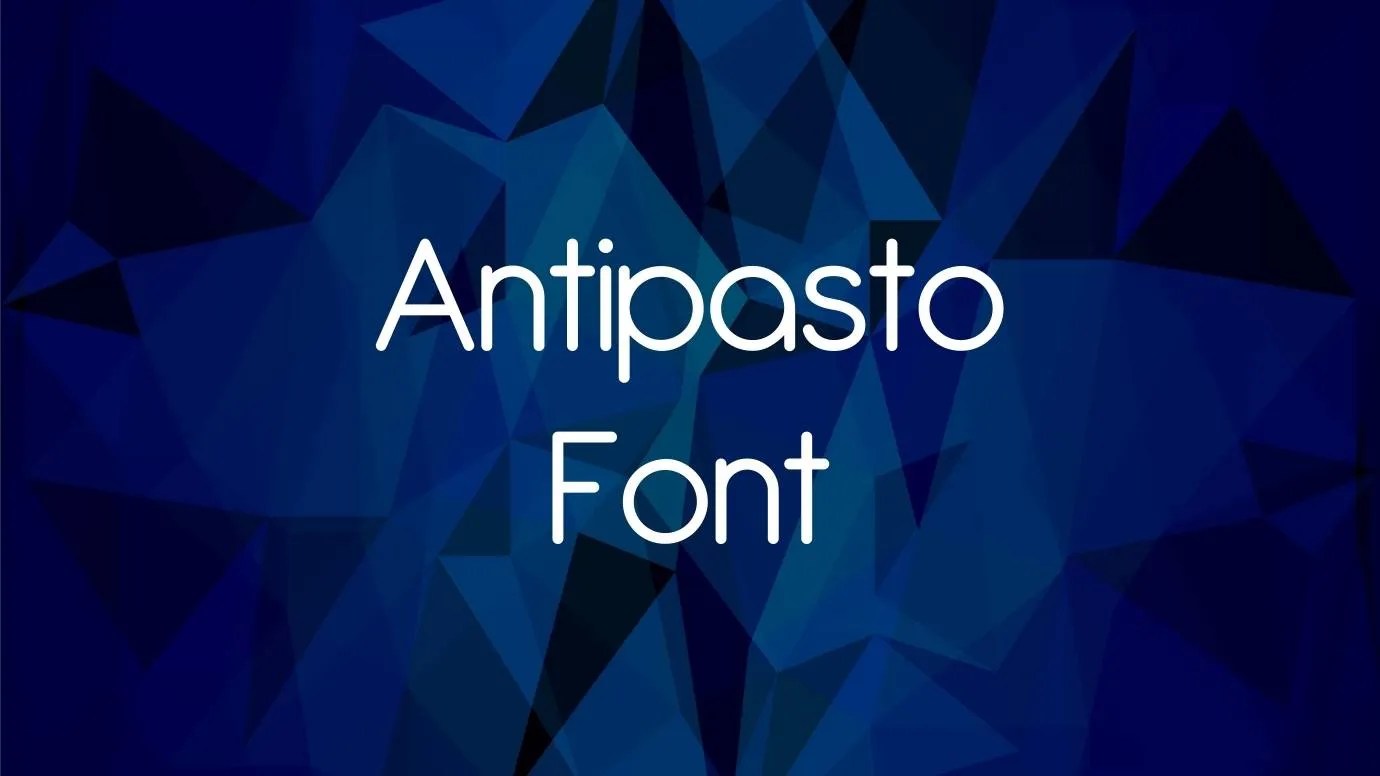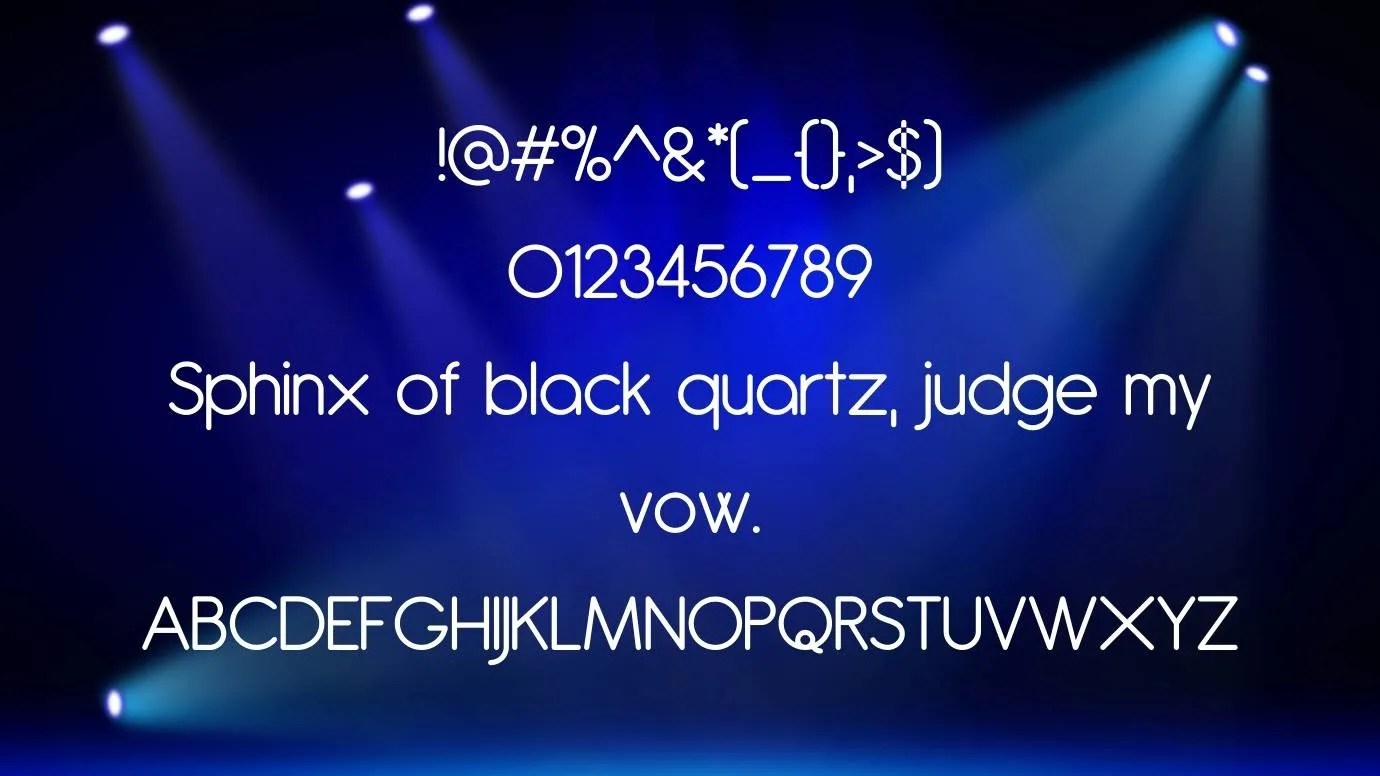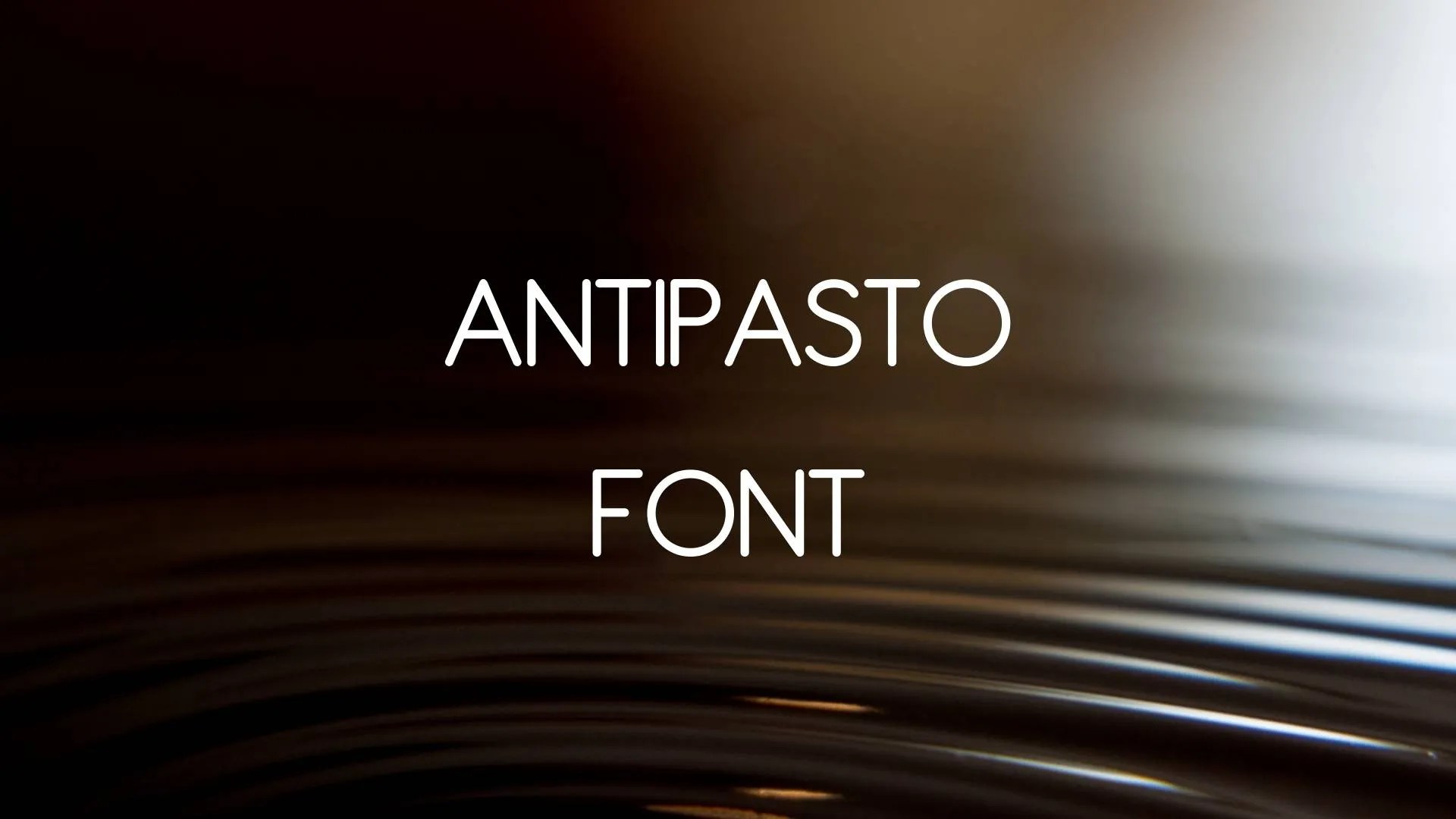
Antipasto Pro Medium Font Free Download . Antipasto is a geometric sans serif font designed by cosimo lorenzo pancini. Antipasto is a geometric sans serif font designed by cosimo lorenzo pancini. Check and download for free. ️ this font has been downloaded 600+ times. The original family of three weights has been revised and expanded in 2017 with antipasto pro that now. The antipasto pro medium font allows you to take your projects to incredible heights. Antipasto pro is a sans serif type font that can be used on any device such as pc, mac, linux, ios and android. Antipasto pro font download is available free from fontget. This font has 9 variant. Download and install the antipasto pro medium font for free from ffonts.net. Download antipasto pro font family · free for personal use · this trial font is totally free for noncommercial uses. Moreover, you can embed it to your. The original family of three weights has been revised and.
Download and install the antipasto pro medium font for free from ffonts.net. Antipasto is a geometric sans serif font designed by cosimo lorenzo pancini. Antipasto pro is a sans serif type font that can be used on any device such as pc, mac, linux, ios and android. The original family of three weights has been revised and expanded in 2017 with antipasto pro that now. The antipasto pro medium font allows you to take your projects to incredible heights. Moreover, you can embed it to your. Check and download for free. ️ this font has been downloaded 600+ times. Antipasto is a geometric sans serif font designed by cosimo lorenzo pancini. Download antipasto pro font family · free for personal use · this trial font is totally free for noncommercial uses.
Antipasto Pro Font is a geometric sans serif font designed by Cosimo
Antipasto Pro Medium Font Free Download Check and download for free. Antipasto is a geometric sans serif font designed by cosimo lorenzo pancini. Antipasto is a geometric sans serif font designed by cosimo lorenzo pancini. The antipasto pro medium font allows you to take your projects to incredible heights. Check and download for free. Antipasto pro is a sans serif type font that can be used on any device such as pc, mac, linux, ios and android. This font has 9 variant. ️ this font has been downloaded 600+ times. Moreover, you can embed it to your. Download antipasto pro font family · free for personal use · this trial font is totally free for noncommercial uses. The original family of three weights has been revised and. Download and install the antipasto pro medium font for free from ffonts.net. Antipasto pro font download is available free from fontget. The original family of three weights has been revised and expanded in 2017 with antipasto pro that now.
Antipasto Pro 1.000 Fonts Free Download Antipasto Pro Medium Font Free Download The antipasto pro medium font allows you to take your projects to incredible heights. Antipasto is a geometric sans serif font designed by cosimo lorenzo pancini. The original family of three weights has been revised and expanded in 2017 with antipasto pro that now. Antipasto is a geometric sans serif font designed by cosimo lorenzo pancini. Download antipasto pro font. Antipasto Pro Medium Font Free Download.
Antipasto Pro Font Free Download Antipasto Pro Medium Font Free Download Antipasto is a geometric sans serif font designed by cosimo lorenzo pancini. Antipasto pro is a sans serif type font that can be used on any device such as pc, mac, linux, ios and android. This font has 9 variant. Check and download for free. Moreover, you can embed it to your. Download and install the antipasto pro medium font. Antipasto Pro Medium Font Free Download.
Antipasto Pro Font Free Download Antipasto Pro Medium Font Free Download This font has 9 variant. The antipasto pro medium font allows you to take your projects to incredible heights. Antipasto is a geometric sans serif font designed by cosimo lorenzo pancini. The original family of three weights has been revised and. Antipasto pro font download is available free from fontget. The original family of three weights has been revised and. Antipasto Pro Medium Font Free Download.
Antipasto Pro font Antipasto Pro Medium Font Free Download ️ this font has been downloaded 600+ times. Download antipasto pro font family · free for personal use · this trial font is totally free for noncommercial uses. Antipasto pro font download is available free from fontget. This font has 9 variant. Antipasto pro is a sans serif type font that can be used on any device such as pc,. Antipasto Pro Medium Font Free Download.
Freefont Antipasto Pro Demi Bold › PAGE online Antipasto Pro Medium Font Free Download Moreover, you can embed it to your. Antipasto is a geometric sans serif font designed by cosimo lorenzo pancini. ️ this font has been downloaded 600+ times. Antipasto pro is a sans serif type font that can be used on any device such as pc, mac, linux, ios and android. The antipasto pro medium font allows you to take your. Antipasto Pro Medium Font Free Download.
Antipasto Pro Font Free Download Antipasto Pro Medium Font Free Download The antipasto pro medium font allows you to take your projects to incredible heights. Antipasto is a geometric sans serif font designed by cosimo lorenzo pancini. Moreover, you can embed it to your. Check and download for free. The original family of three weights has been revised and expanded in 2017 with antipasto pro that now. Download and install the. Antipasto Pro Medium Font Free Download.
Antipasto Font Free Download Antipasto Pro Medium Font Free Download The antipasto pro medium font allows you to take your projects to incredible heights. Download antipasto pro font family · free for personal use · this trial font is totally free for noncommercial uses. Antipasto is a geometric sans serif font designed by cosimo lorenzo pancini. Antipasto pro is a sans serif type font that can be used on any. Antipasto Pro Medium Font Free Download.